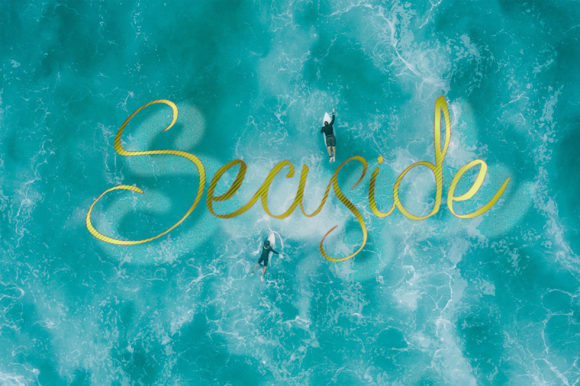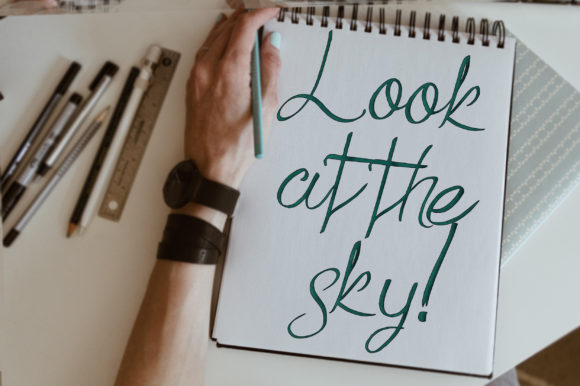
Forest Font
db-ku.com - Script & Handwritten -- Forest takes inspiration by the effortless beauty of nature. Fall in love with its extraordinary look and feel!